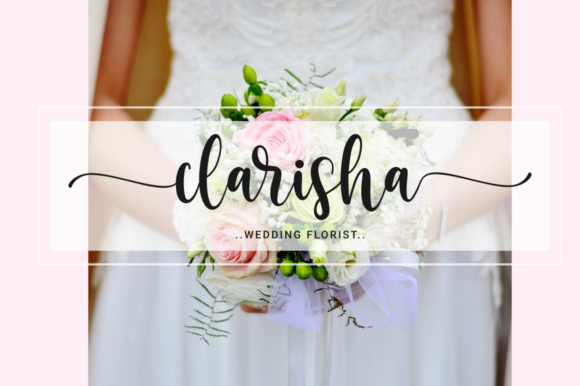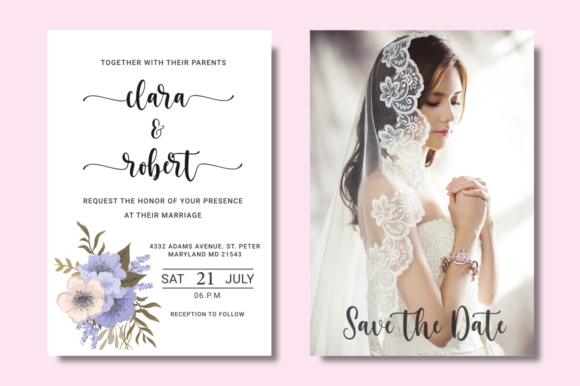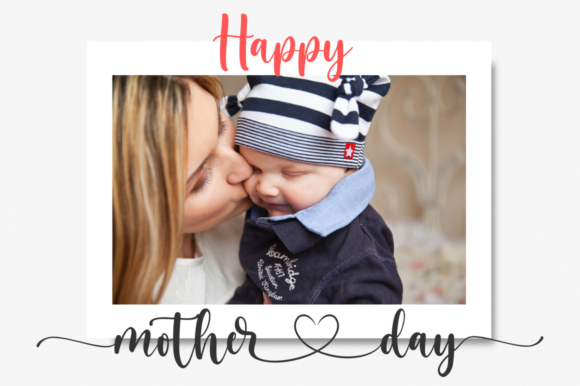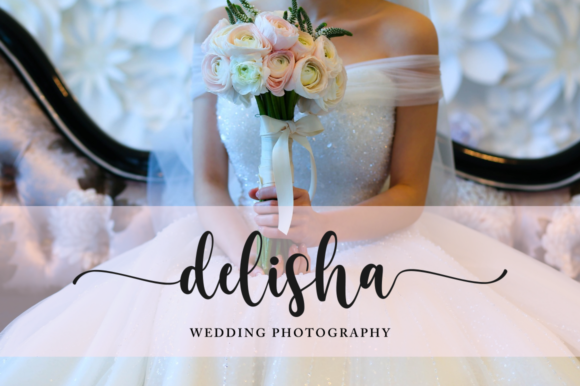
About Bella Sohfia Font
Bella Sohfia is an elegant and romantic handwritten font with an incredibly effortless style. This font is PUA encoded which means you can access all of the glyphs and swashes with ease! It features a varying baseline, smooth lines, gorgeous glyphs and stunning alternates.
Whether you’re looking for fonts for Instagram or calligraphy scripts for DIY projects, Bella Sohfia will turn any creative idea into a true piece of art!